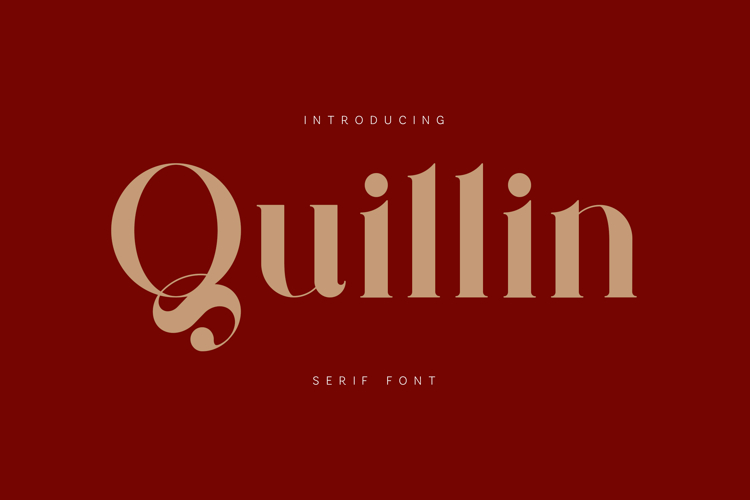
Quillin Elegant Luxury Serif Font
Quillin is an elegant serif typeface that blends timeless sophistication with modern refinement. Designed with graceful curves, distinctive letterforms, and high-contrast details, it brings a luxurious presence to branding, packaging, editorial layouts, logos, magazines, beauty products, hospitality projects, and premium marketing materials.
Its carefully crafted characters create a refined reading experience while maintaining strong visual impact at display sizes. Quillin includes uppercase and lowercase letters, numerals, punctuation, multilingual language support, and beautifully balanced glyphs for professional typography work.
Whether you're designing a luxury brand identity, editorial publication, cosmetic packaging, restaurant branding, wedding stationery, or elegant social media content, Quillin delivers a sophisticated and memorable typographic voice.